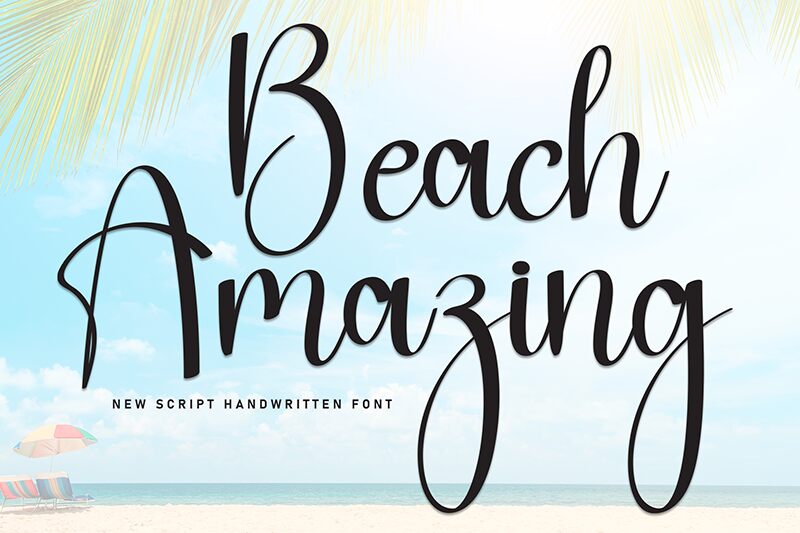
Beach Amazing
Beach Amazing font is a handwritten creation by Andi Moz, offering an elegant and expressive touch to your designs. It combines artistic flair with flowing movement and a contemporary vibe, perfect for projects that demand attention.